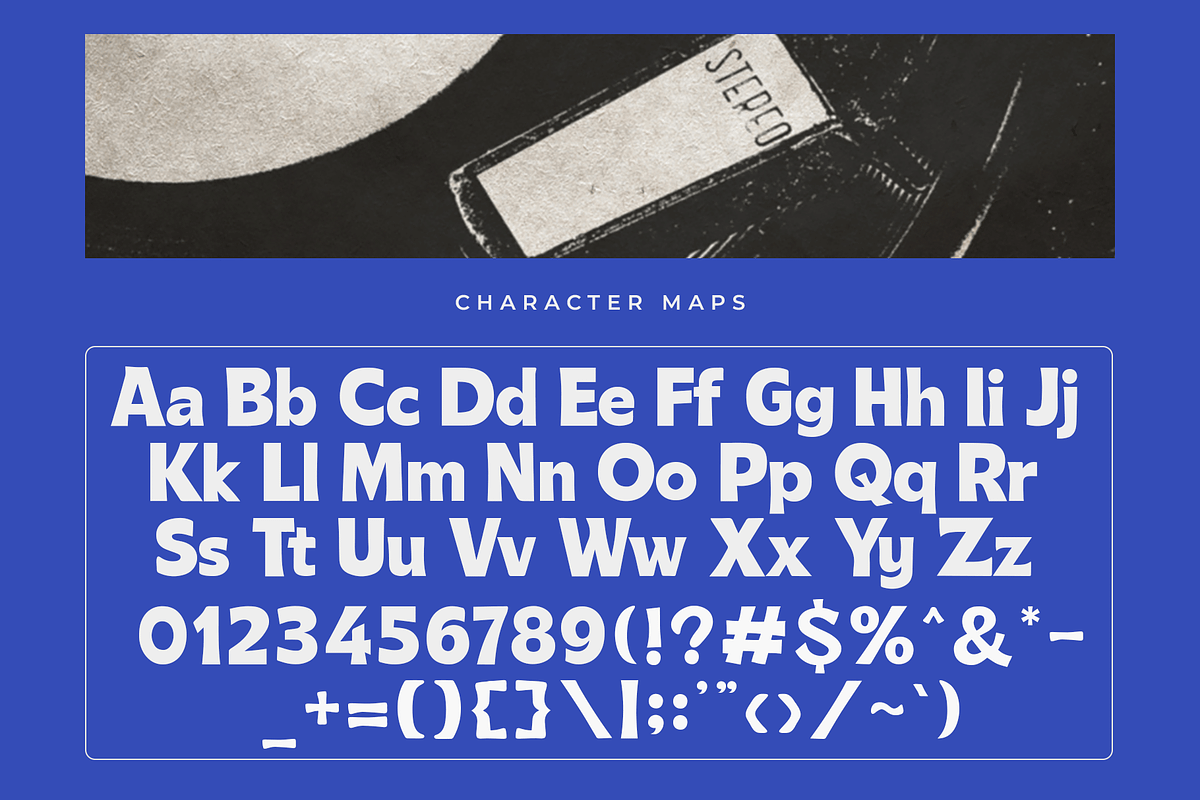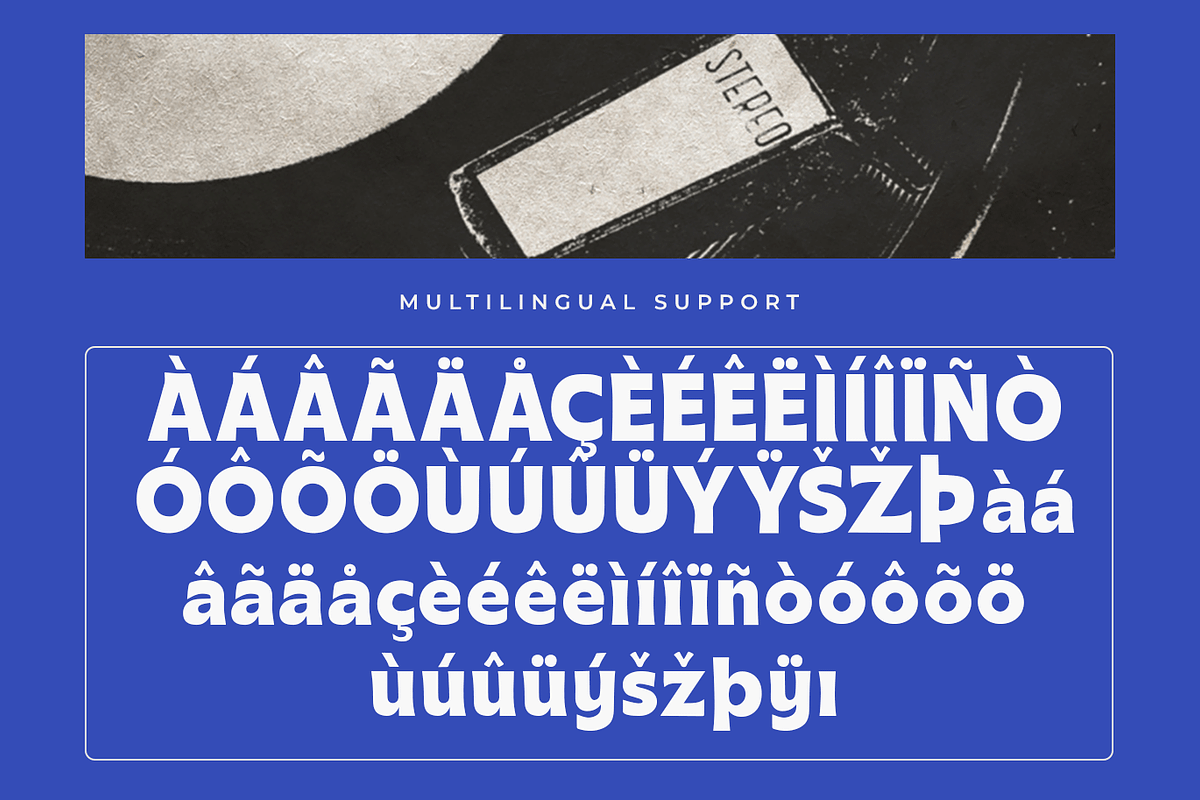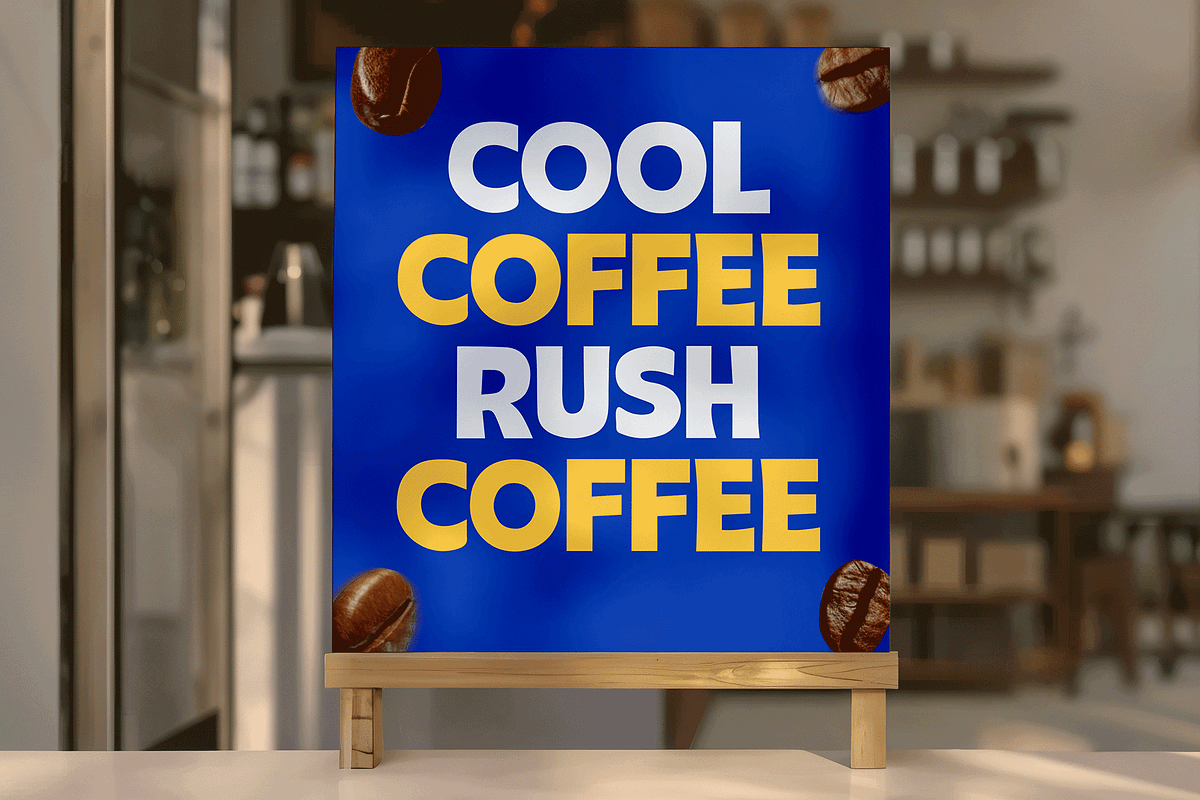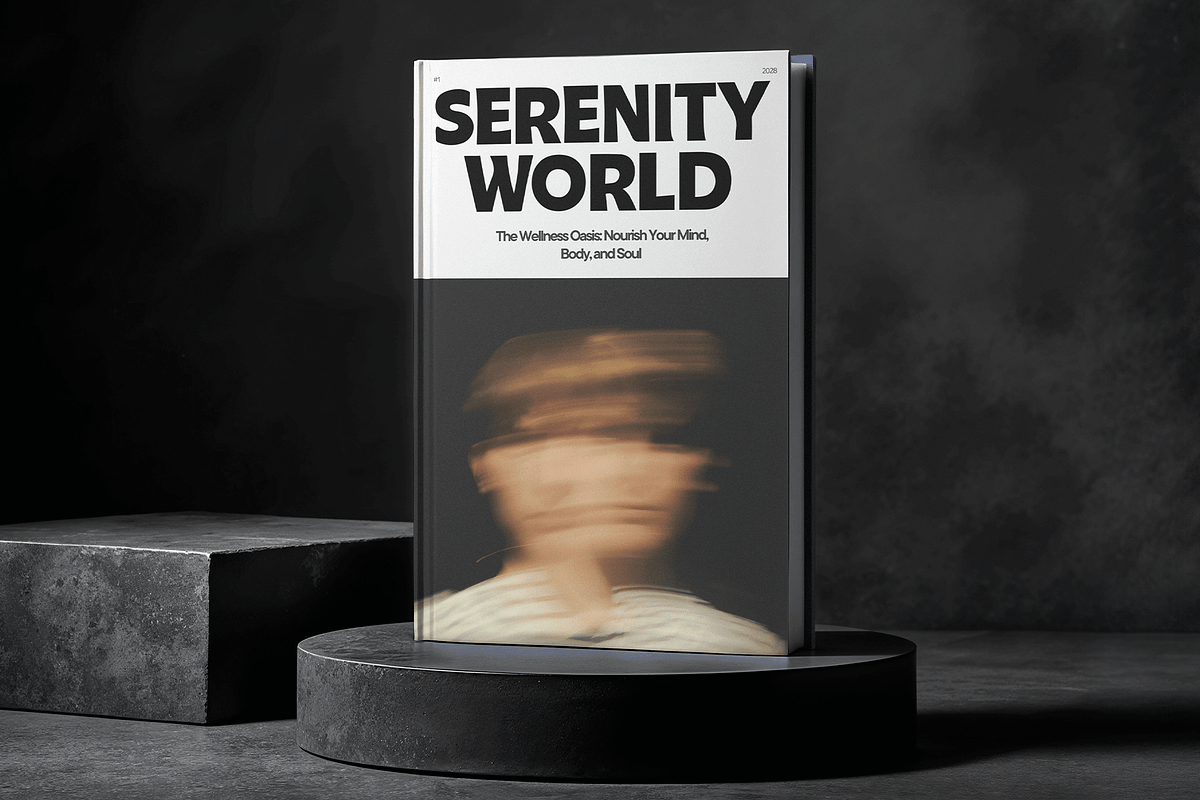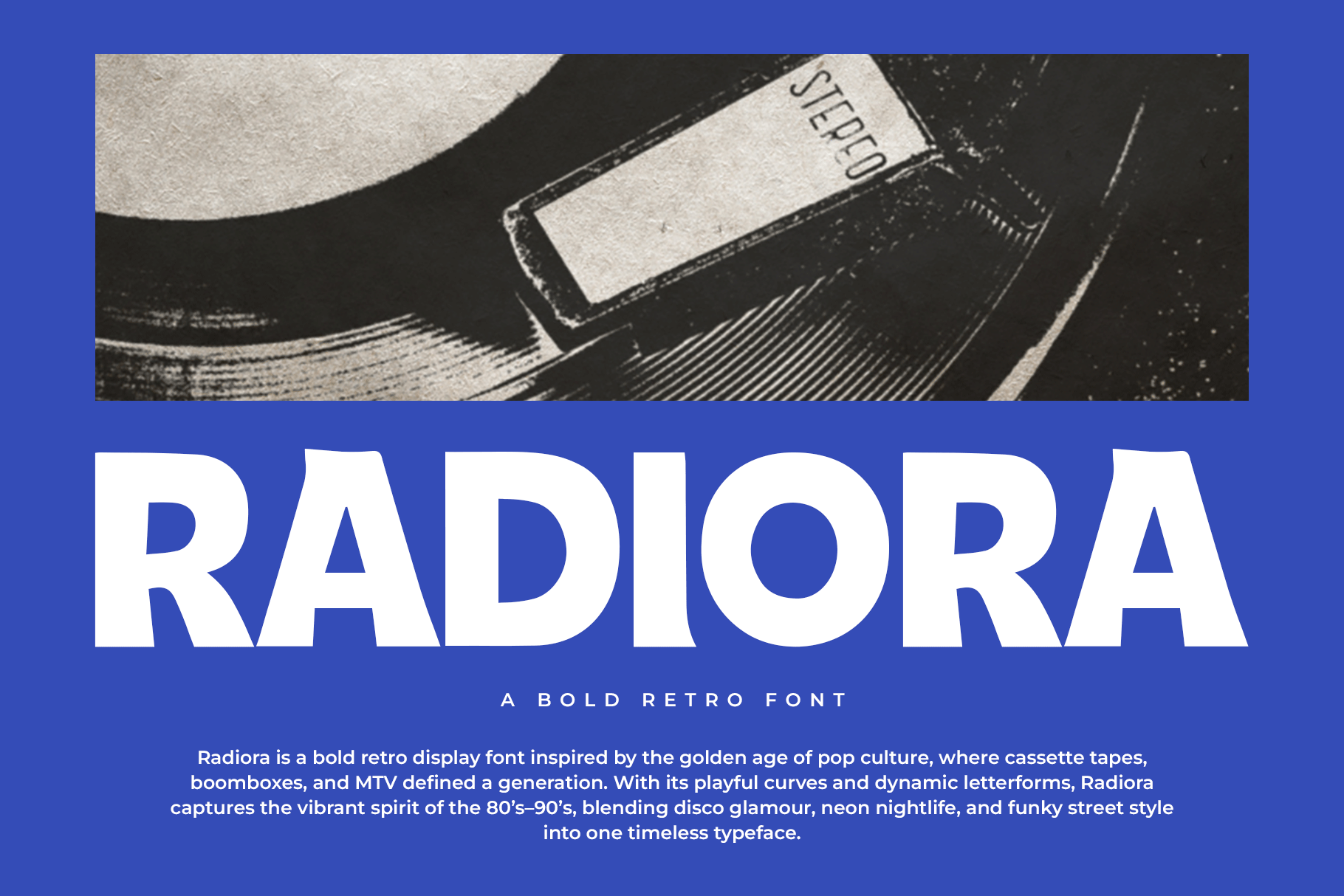
Radiora – Bold Retro Font
Radiora is a bold retro font designed to capture the nostalgic charm of vintage typography with a modern twist. Its thick, rounded strokes and playful curves make it perfect for projects that demand both personality and impact.
Ideal for posters, packaging, music covers, logos, social media graphics, and branding, Radiora delivers a striking retro feel that grabs attention instantly. Its bold structure and smooth flow make it versatile for both display headlines and creative design elements.
Complete with uppercase, lowercase, numbers, punctuation, and multilingual support, Radiora provides everything you need to create vibrant, throwback-inspired designs with ease.